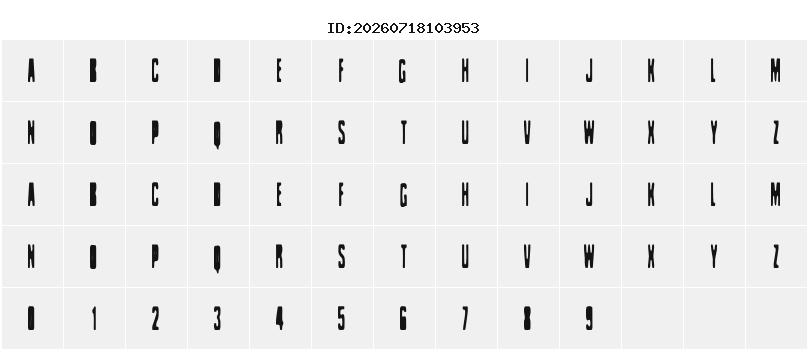
• Font Name: Celofan
• Designer: High-Logic - Erwin Denissen 1999
• Manufacturer: High-Logic
About Celofan.ttf
Celofan.ttf is a modern, elegant sans-serif font designed for ultimate readability and visual harmony. Perfect for branding, headlines, web design, and print materials.